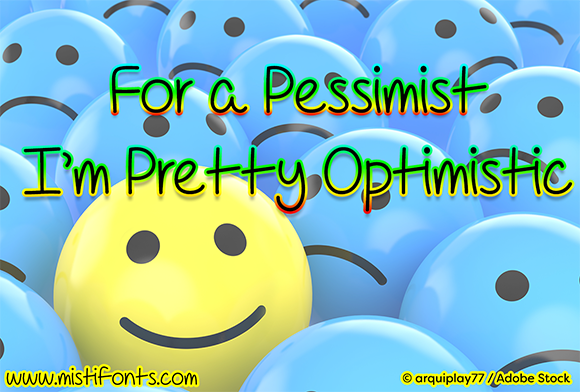
HomeScript FontsFor a Pessimist I''m Pretty Optimistic Script Fonts For a Pessimist I”m Pretty Optimistic FacebookXPinterestWhatsApp 1 of 1 About For a Pessimist I”m Pretty Optimistic Font For A Pessimist I’m Pretty Optimistic is a cool handwritten font that is perfect for your design and craft projects! DOWNLOAD NOW People also explored Queen Azula Font Faithe September Fabulous Font Green Leaves Font Go Live Font Thanks Christmas Font Naranino Font Jhonathan Font Miguela Script Font 306 0 TagsFor a Pessimist I''m Pretty Optimistic Font Previous articleDon”t LebayNext articleMy Grandpa”s Farm LEAVE A REPLY Cancel reply Comment: Please enter your comment! Name:* Please enter your name here Email:* You have entered an incorrect email address! Please enter your email address here Website: Save my name, email, and website in this browser for the next time I comment. Personal Use Free Simple Personal Use Free Read more about this font Bakk Trieng Personal Use Free Read more about this font Loving Personal Use Free Read more about this font Budmo Personal Use Free Read more about this font BLOG Top 7 Google Fonts Alternatives for Faster and Privacy-Friendly Web Design (2025) Top 7 Google Fonts Alternatives for Faster and Privacy-Friendly Web Design (2025) When it comes to web typography, Google Fonts has long been the go-to... 5 Fonts That Will Dominate Design Trends in 2026 Exploring Font Trends Best Fonts for YouTube Videos: Make Your Thumbnails Stand Out